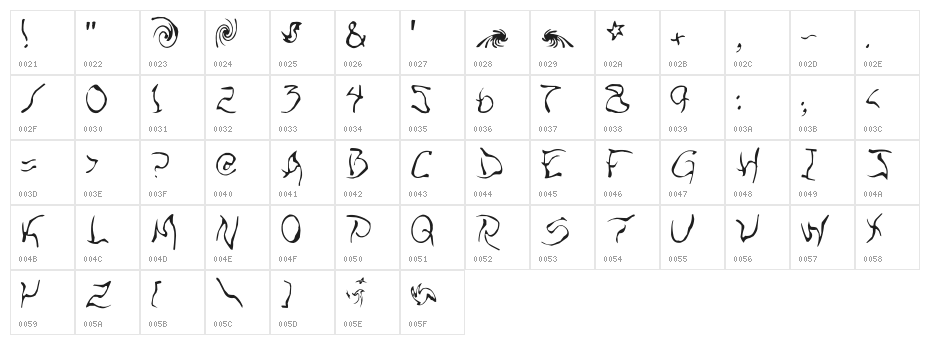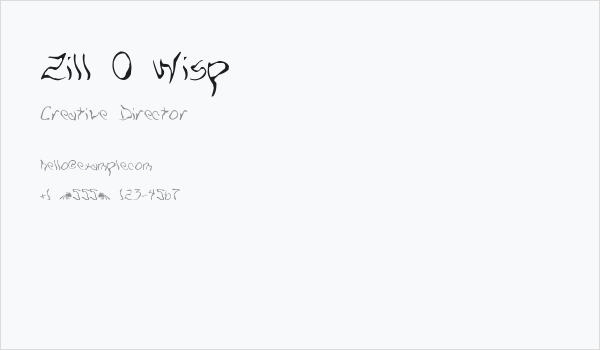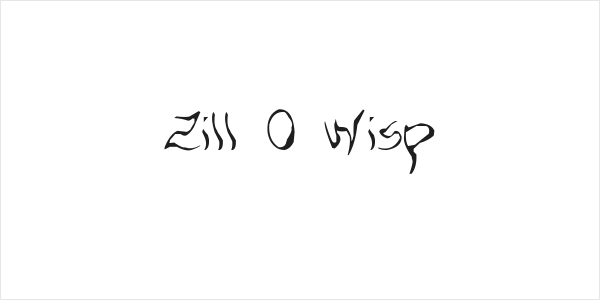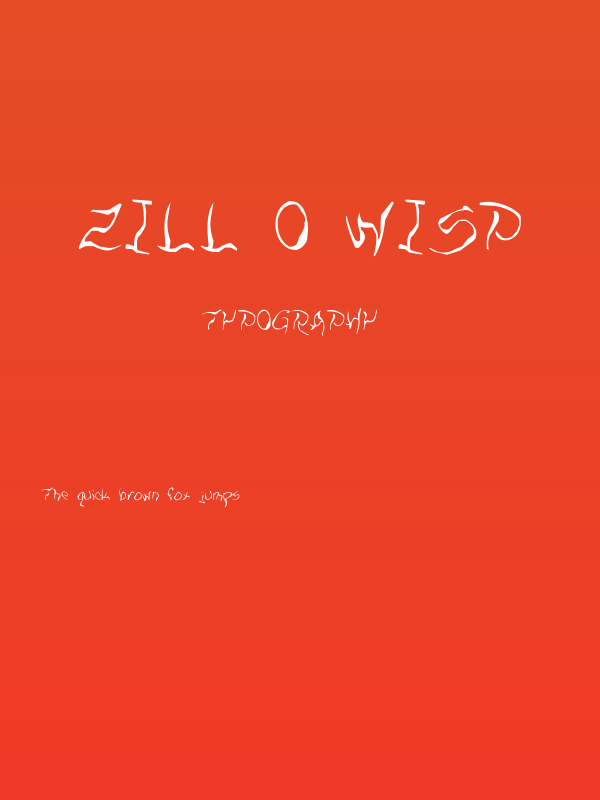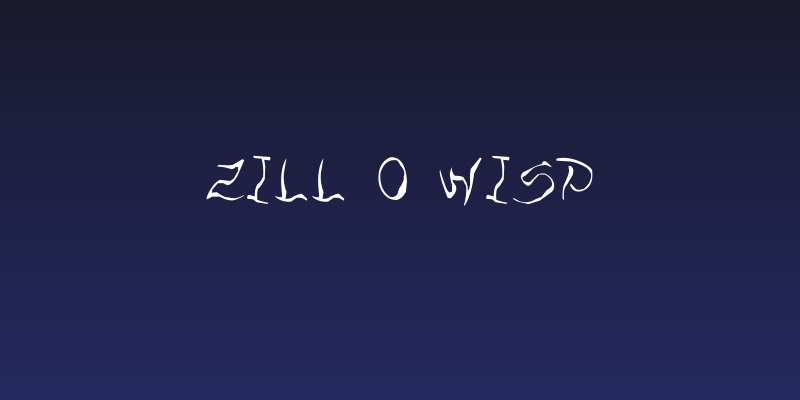
Zill O Wisp Font
Zill O Wisp Description
This font features a whimsical and artistic design, characterized by its fluid, swirling strokes and irregular shapes. The letters have a hand-drawn, organic feel, with each character displaying unique curves and angles that give it a dynamic and lively appearance. The uppercase and lowercase letters maintain a consistent style, while the numbers and special characters add an extra layer of creativity with their imaginative forms. This font is perfect for projects that require a touch of fantasy or a playful aesthetic.
Use CaseHeadlines, Logos, Artistic projects
Proposed ProjectsIdeal for fantasy-themed designs, children's book covers, creative posters, and artistic branding.